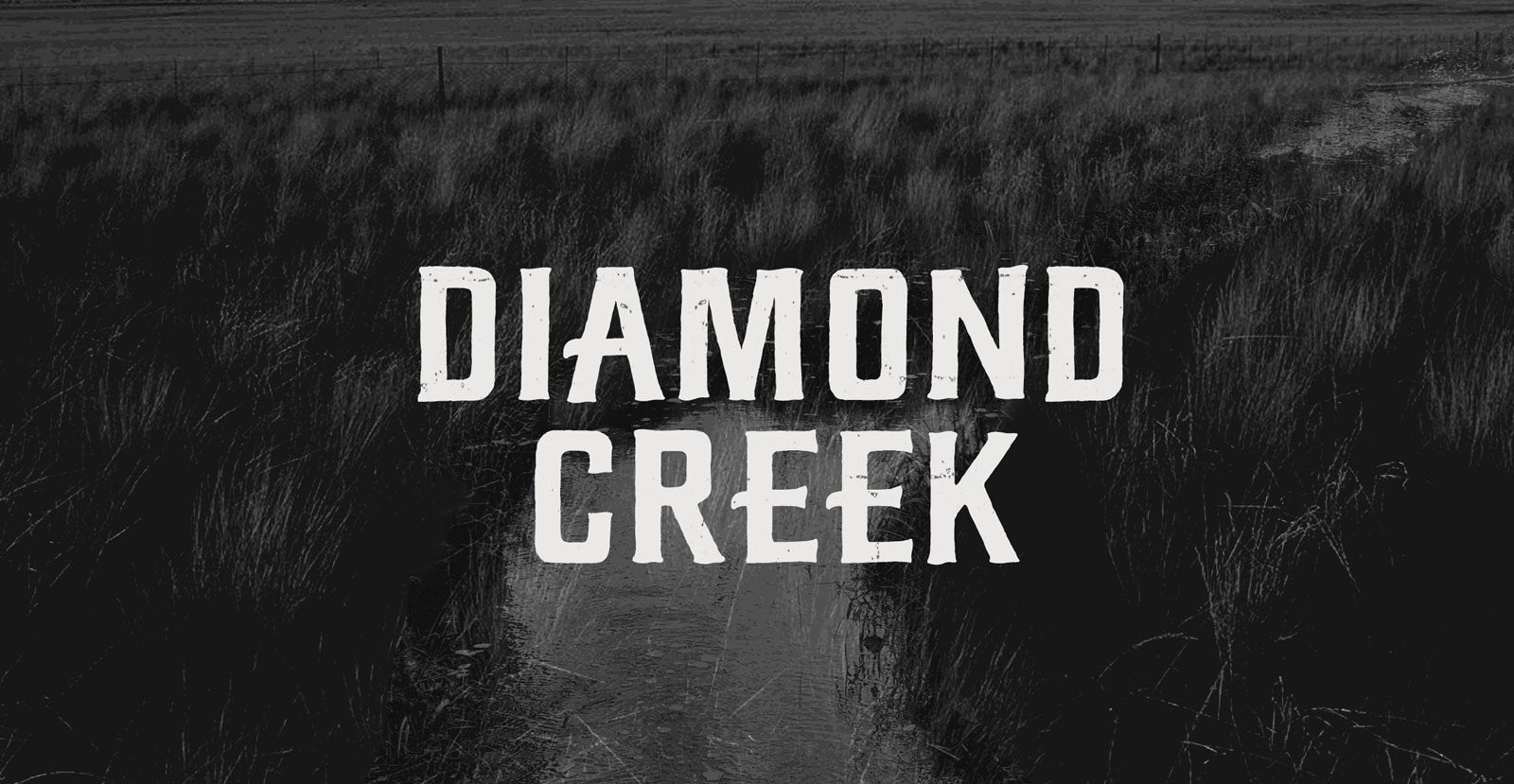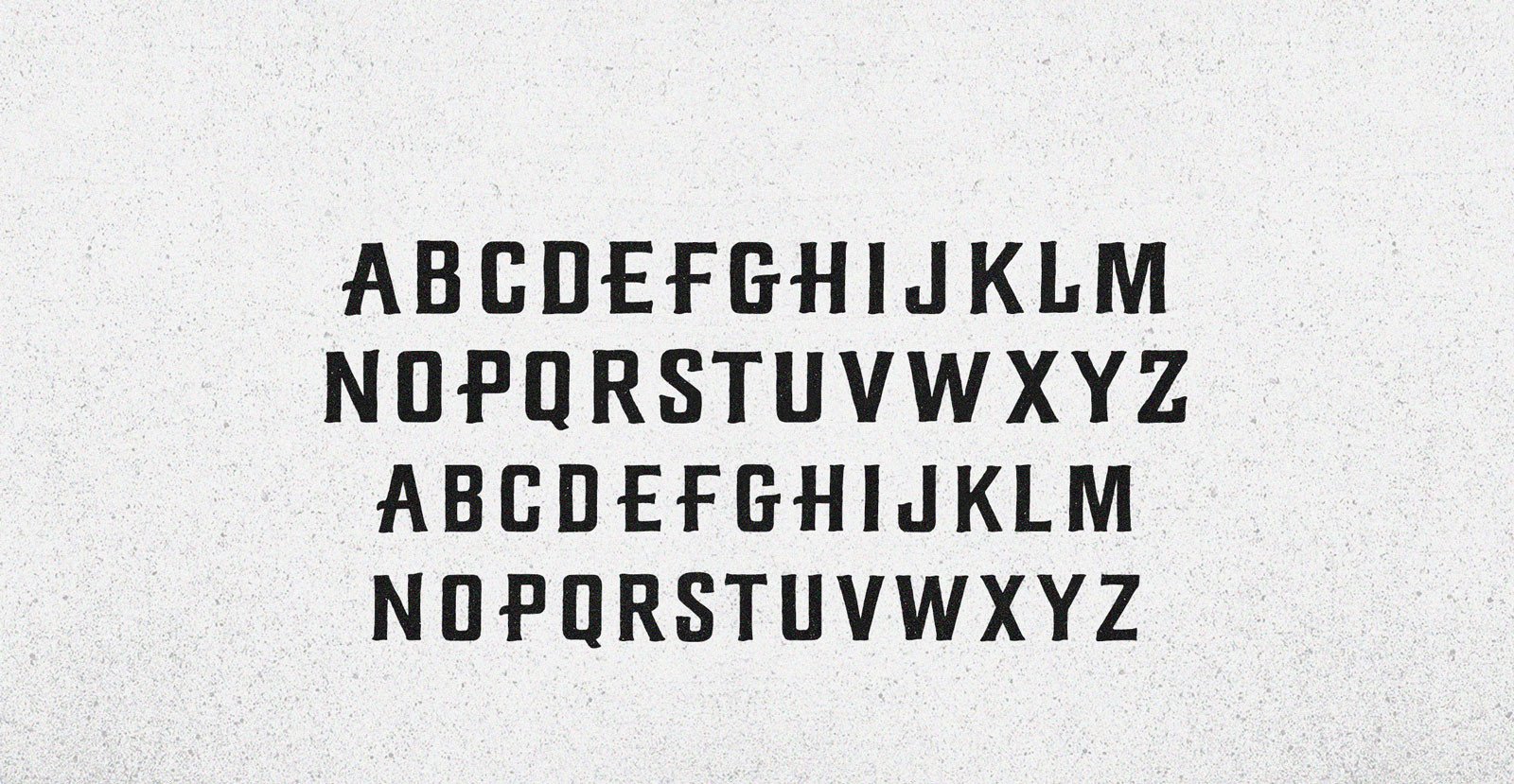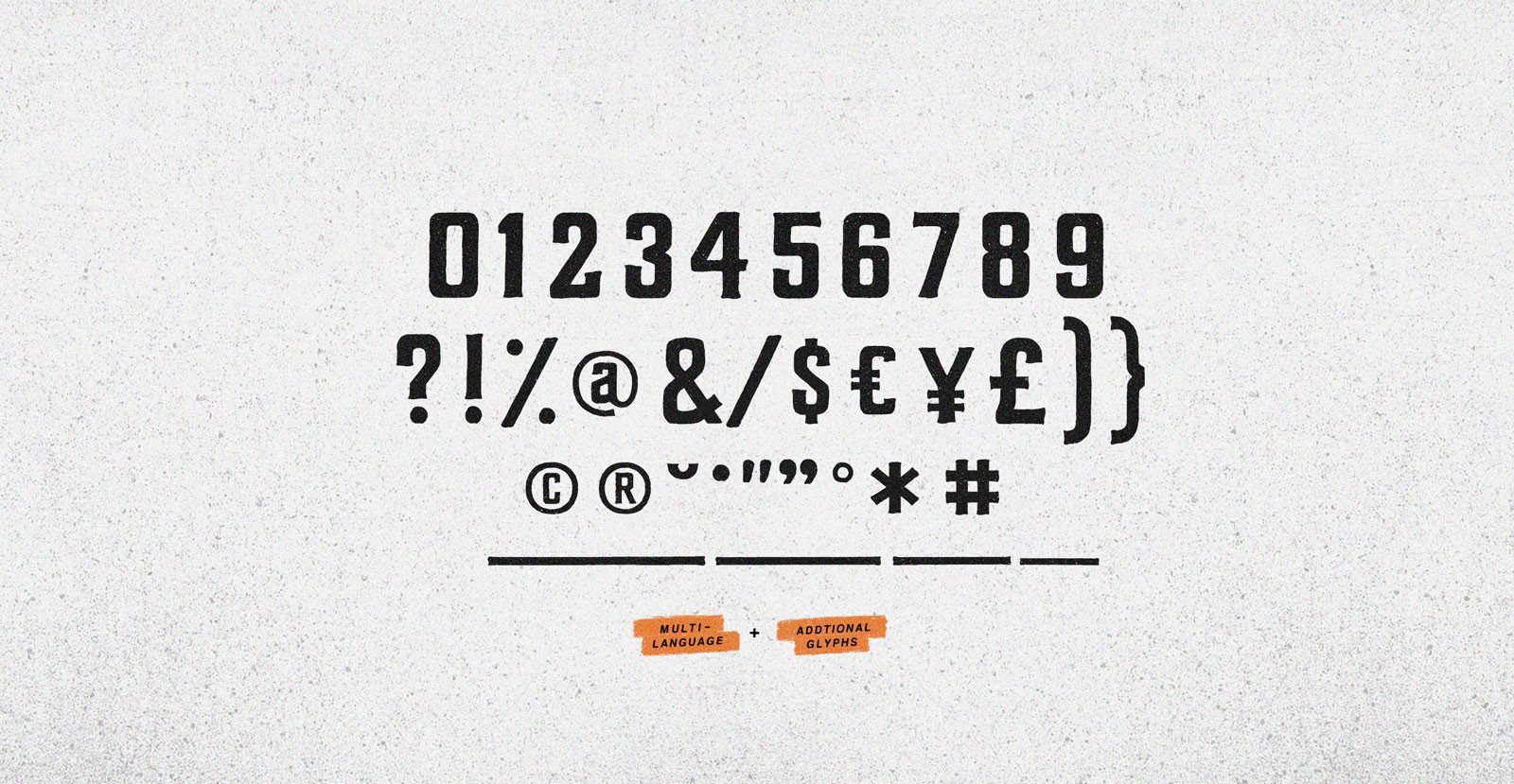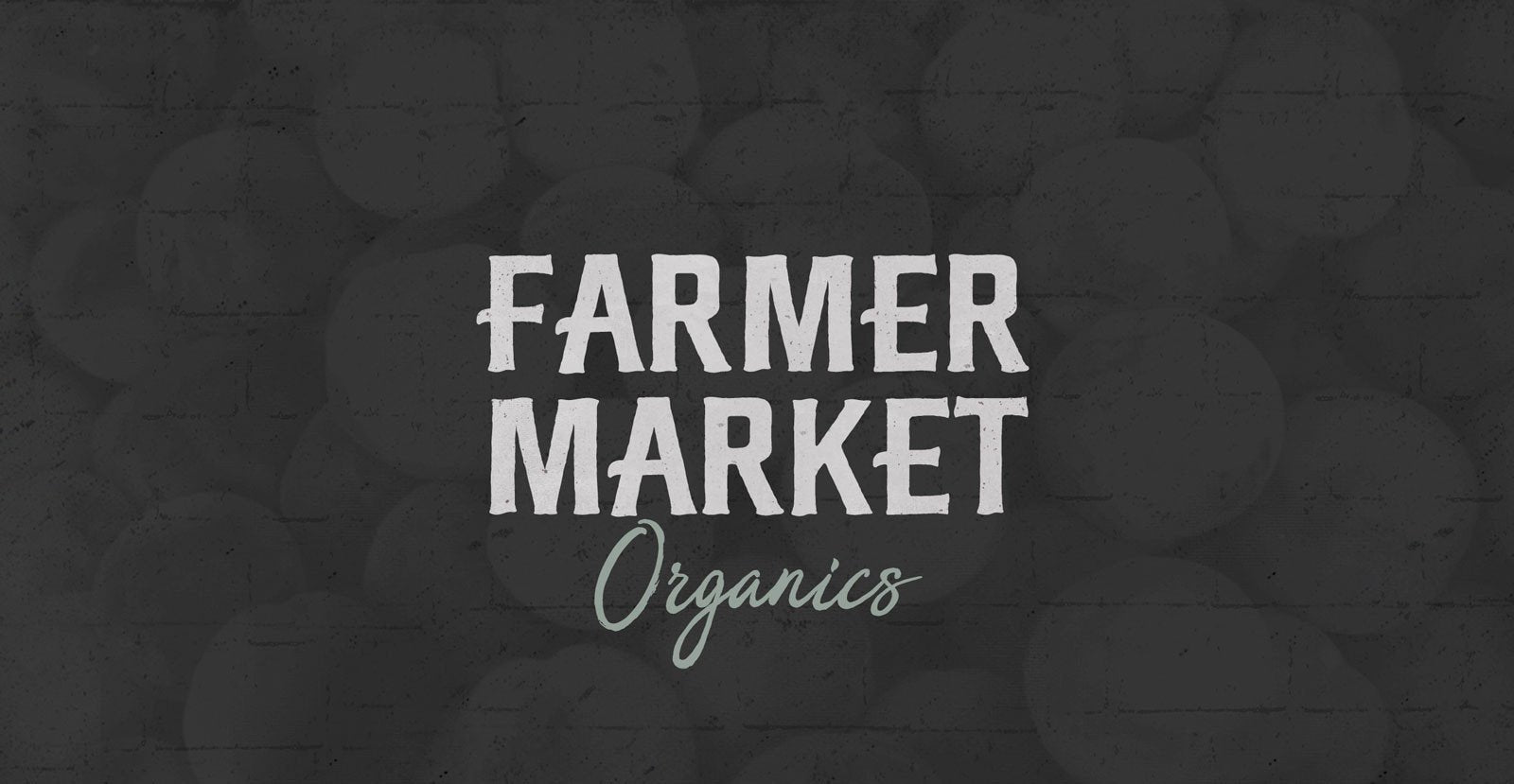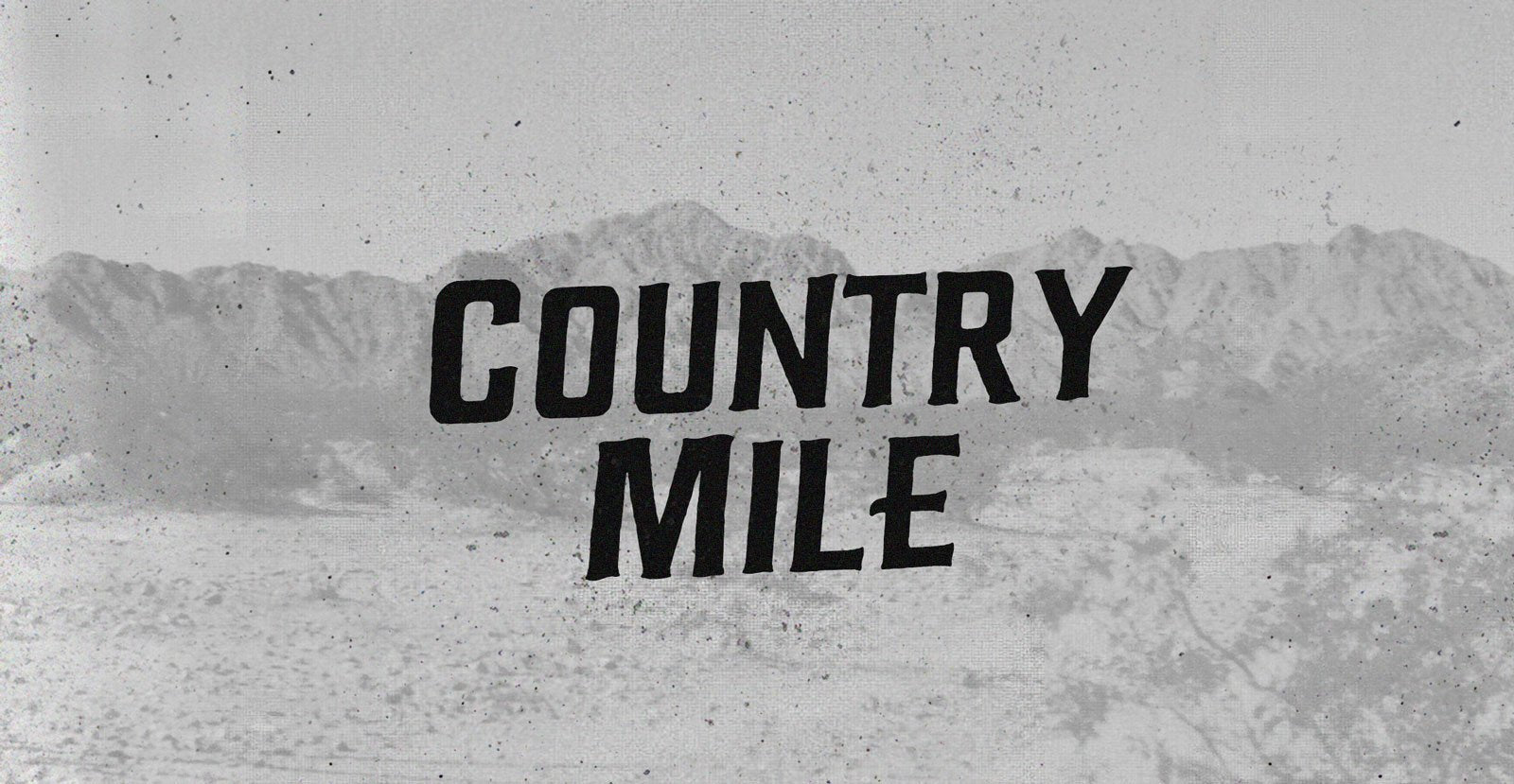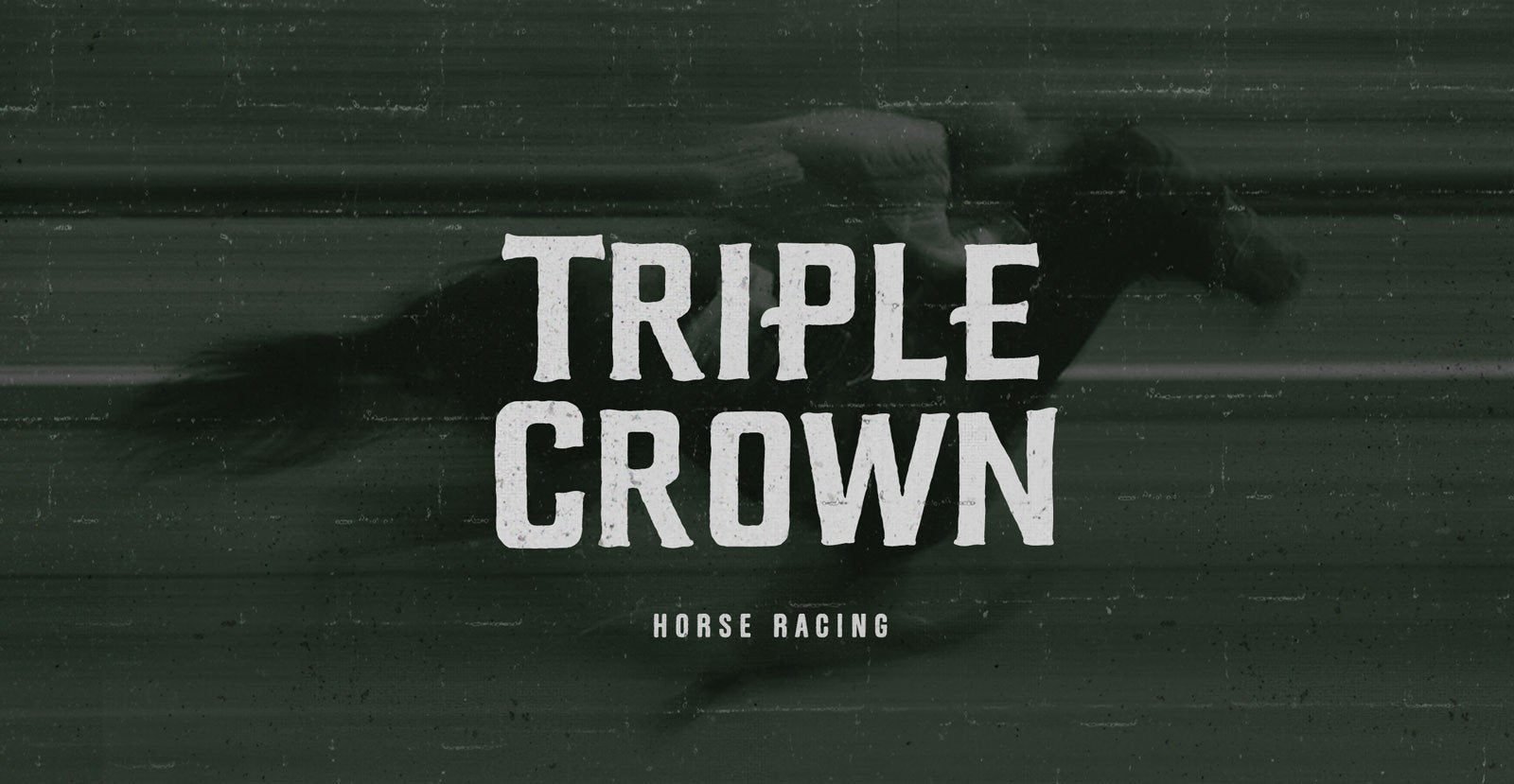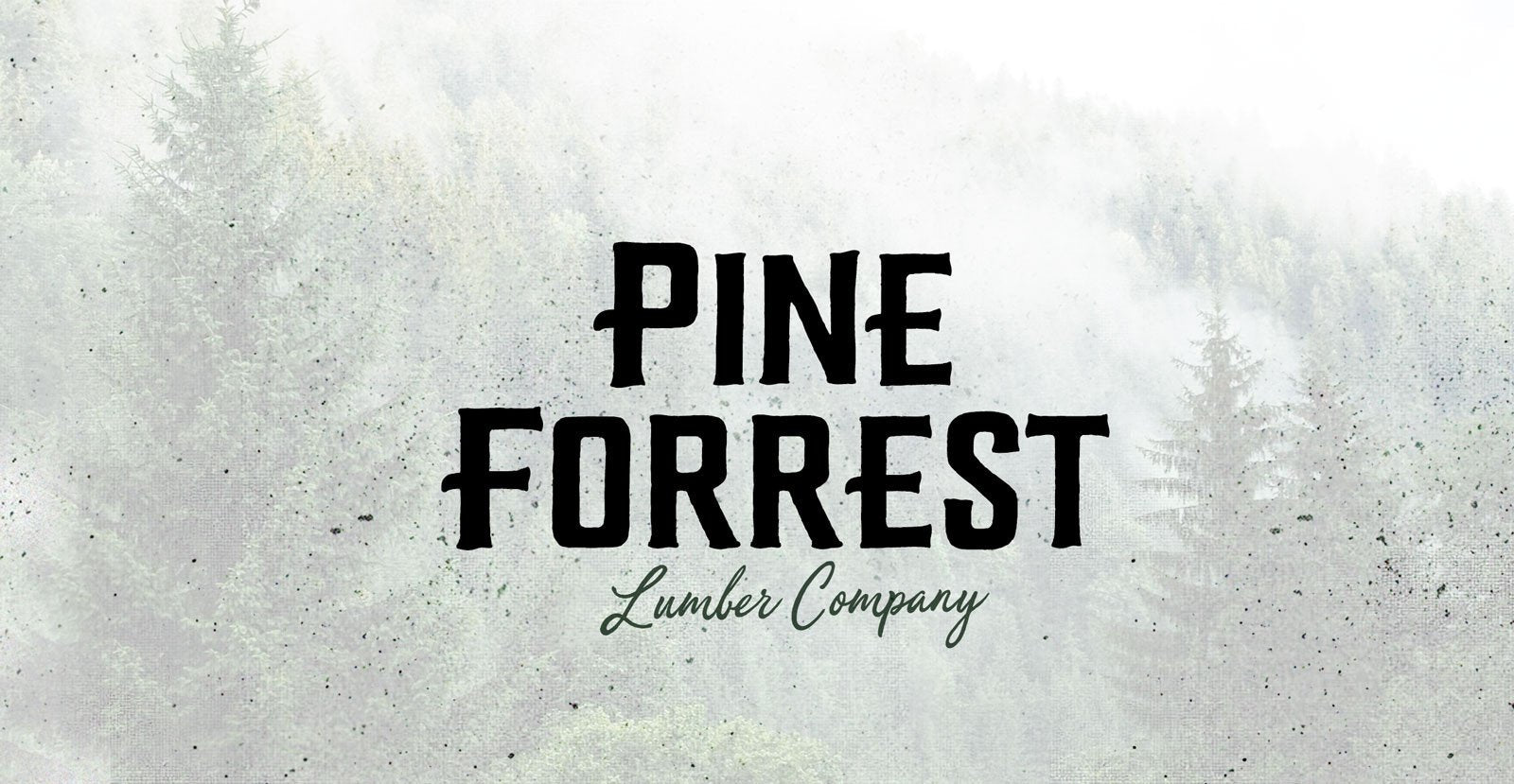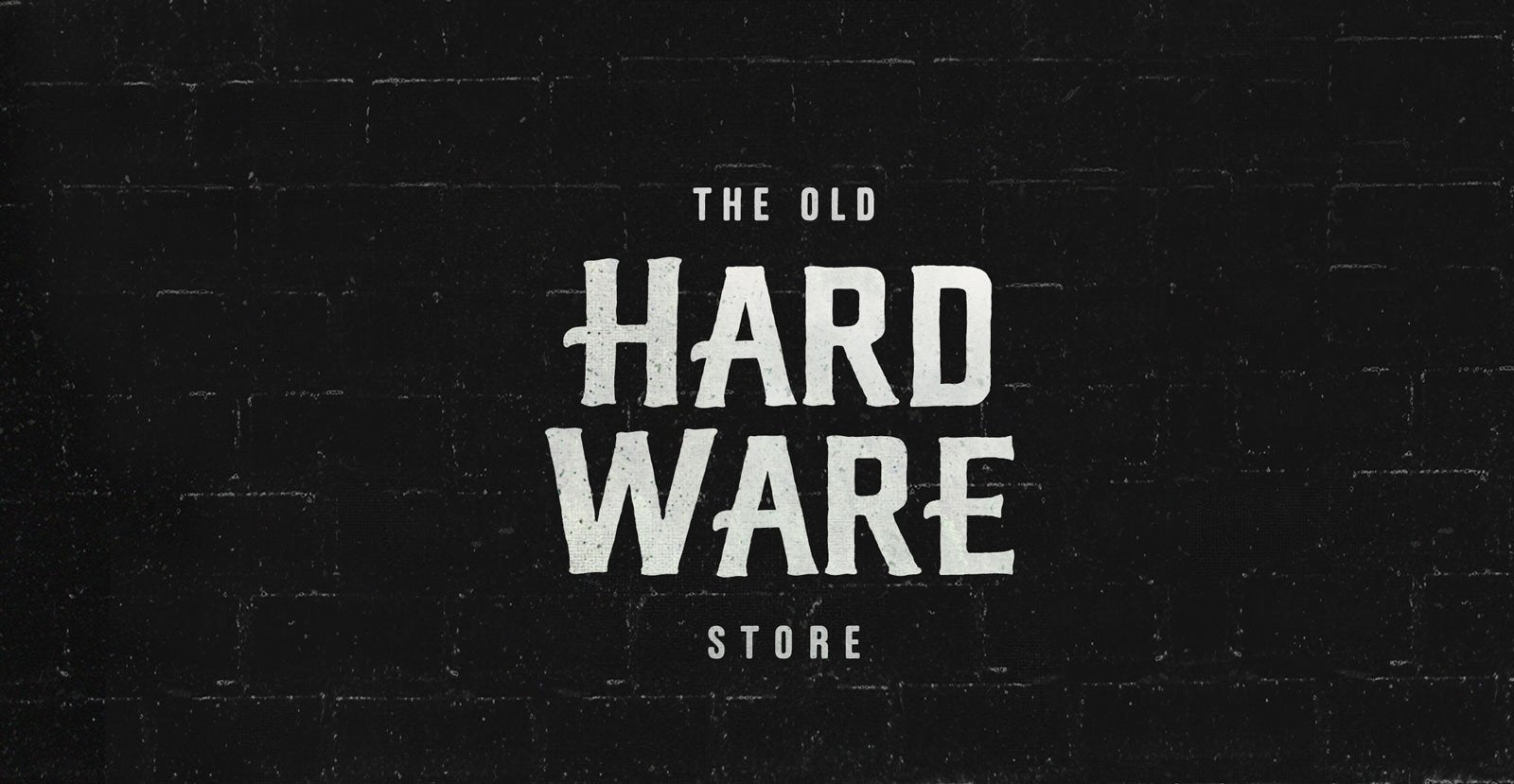
Diamond Creek
Handwritten Serif Font
I never did find any diamonds in that old creek. Crawfish, sure. They'd trick a fool and catch him slipping on the rocks they'd hide under, but more's a fool who tricked himself into finding treasure in that so-called Diamond Creek.